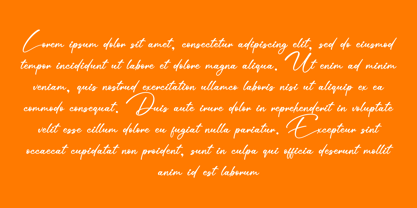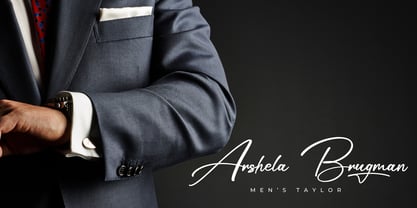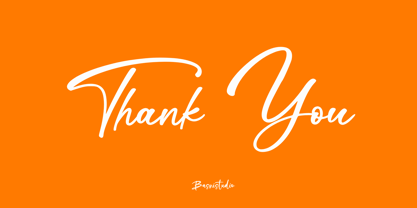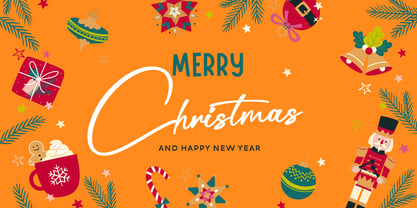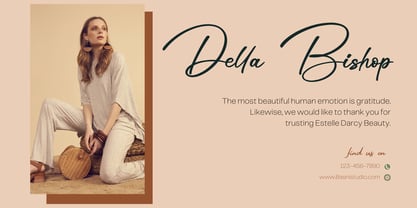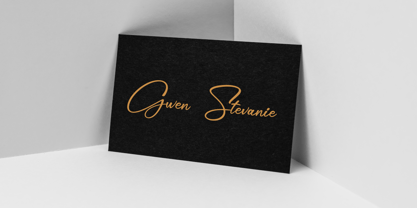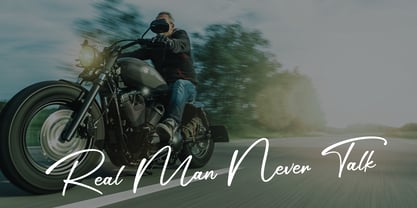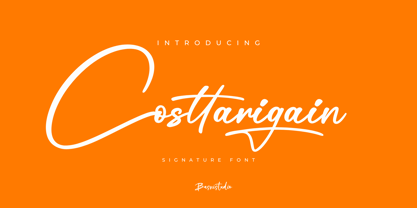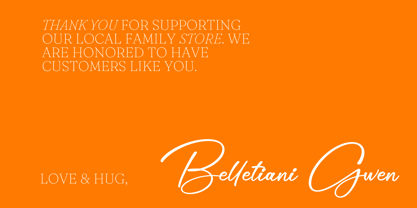
Costtarigain
by Basnistudio
The Costtarigain Font Family was designed by Bery Arisandi and published by Basnistudio. Costtarigain contains 1 styles.
Introducing Costtarigain Signature Font
Costtarigain Signature Font, made by Naturaly Handwriting & Authentic Style.
This Font is perfect for an magazine, clothes, quotes, and so much more. This font is PUA encoded, which means you can access all of the glyphs.
• Alternates
• ligatures
Designers: Bery Arisandi